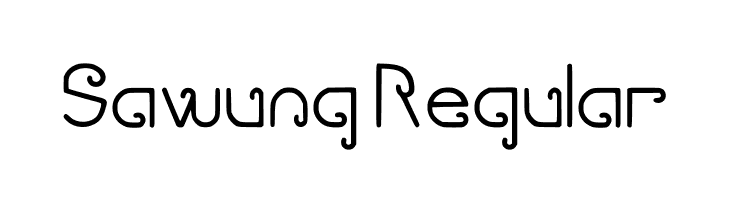
A bold, playful handwritten font with smooth curves and thick strokes.
Casual handwritten script font.
A bold, angular font with a dynamic, rebellious style.
A bold, decorative font with a 3D shadow effect and textured detailing.
A bold, distressed font with a grunge texture, perfect for vintage designs.
An elegant serif italic font with moderate contrast and graceful letterforms.
A bold, italicized font with dynamic and energetic styling.
A graceful and flowing script font with elegant, connected strokes.
A rugged, distressed font with a hand-carved, organic appearance.
A bold, three-dimensional font with a vintage, shadowed style.
A segmented, digital-inspired font with a futuristic and technical style.
A futuristic, segmented font with a digital, LED display style.
A bold, italic, geometric font with a futuristic, digital appearance.
A futuristic, segmented font with an italic slant, ideal for digital-themed projects.
A futuristic, segmented font with an oblique slant and digital appearance.
A futuristic, geometric font with rounded edges and cut-out sections.
A futuristic, geometric font with rounded edges and a stencil-like design.
A playful, bold font with rounded, whimsical characters.
A lively, expressive handwritten font with dynamic strokes and artistic flair.
A bold, modern serif font with strong, angular serifs and cohesive design.
A bold, brush-style font with an energetic and artistic flair.
A lively, flowing script font with elegant loops and a handwritten appeal.
A playful, bold font with irregular, whimsical characters.
A graceful and fluid script font with elegant, connected characters.
A whimsical, cursive font with elegant, flowing strokes.
A modern, elegant script font with flowing, handwritten characteristics.
A lively and elegant script font with smooth curves and a playful bounce.
A bold, geometric font with sharp angles and a modern, industrial feel.
A bold, geometric outline font with a modern and clean aesthetic.
A classic slab serif font with bold, block-like serifs and a strong, authoritative presence.
A bold, rounded decorative font with a playful style.
A bold, rounded decorative font with a playful and engaging style.
A bold, rounded, and decorative font with a playful, retro style.